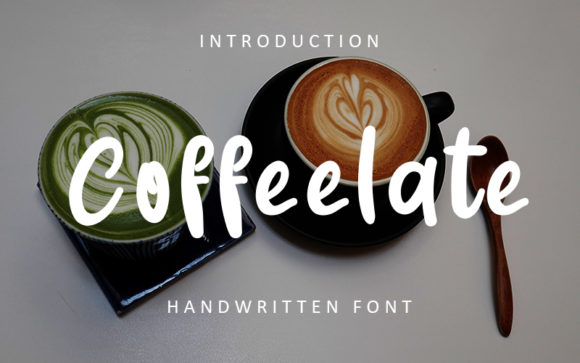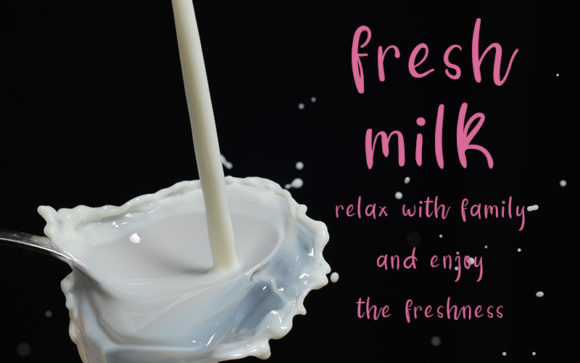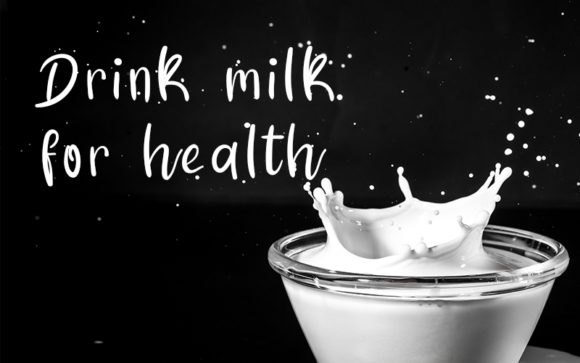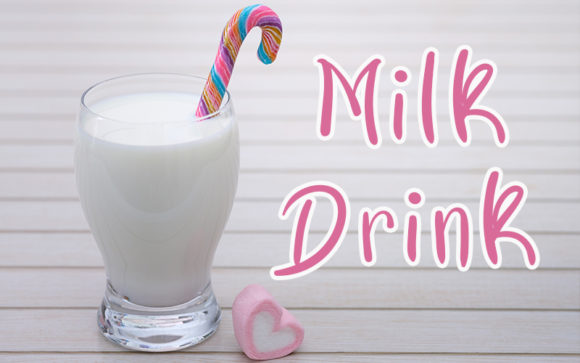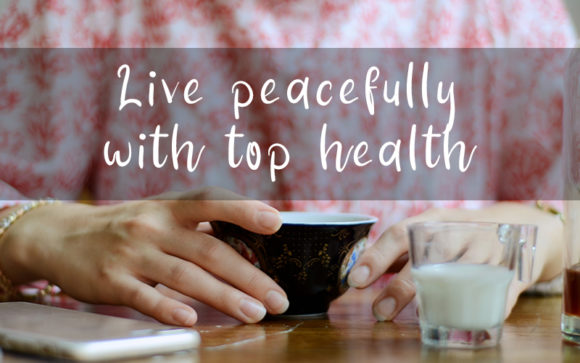
Coffeelate Font
About Coffeelate Font
Coffeelate is a stylish handwritten font. This font reads as strong, trendy, and dynamic and can add tons of nostalgic character to your designs.